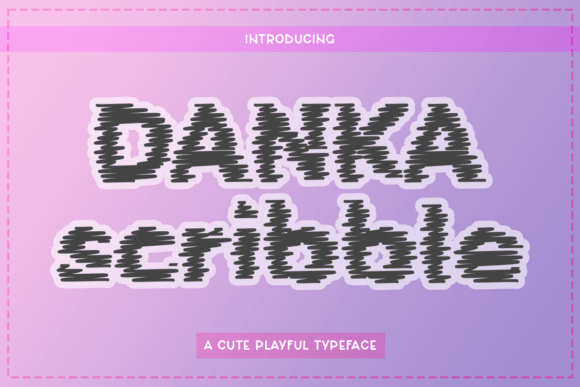
Unleash Your Inner Rebel with the Danka Scribble Font
There’s nothing quite like the rush of creative freedom that comes with picking up a pen and letting your imagination run wild. The scratch of the paper, the swirl of ink, and the thrill of watching your ideas take shape – it’s a sensation that never gets old. And what if you could capture that same energy and spontaneity in your designs? Enter the Danka Scribble Font, a distressed, scribble-themed display font that’s perfect for projects that demand an artistic, rebellious flair.
With its hand-drawn textures and edgy, chaotic charm, the Danka Scribble Font is a game-changer for designers looking to add some unpredictability to their work. Whether you’re creating bold posters, grunge-inspired branding, or anything in between, this one-of-a-kind font is sure to turn heads and spark imagination. By incorporating the Danka Scribble Font into your designs, you’ll be able to make a bold statement and leave a lasting impression.
Danka Scribble Font Key Features
- Unique Characteristics: Danka Scribble Font features a unique scribble-style design, with handwritten-like strokes and flourishes that add a touch of personality to any text.
Danka Scribble Font Review
Overall, I found the Danka Scribble Font to be a visually appealing and versatile choice for various design projects.
- The font’s playful, hand-drawn feel adds a unique touch to text-based designs.
- Its wide range of font weights and styles allows for flexibility in choosing the perfect look for your project.
- The font’s legibility is surprisingly good, making it suitable for both short and long passages of text.
- The font’s irregularities may not be suitable for formal or professional projects where a more polished look is required.
- The font’s width and spacing can be inconsistent, which may cause layout issues in certain situations.
- The font’s aesthetic may not be to everyone’s taste, as some may find it too playful or childish.
In conclusion, the Danka Scribble Font is a great choice for designers looking to add some personality to their projects. While it may not be suitable for every project, its versatility and unique aesthetic make it a valuable addition to any design library.
Getting the Most Out of Danka Scribble
For the best results, use Danka Scribble in combination with bold or italic text to create contrast and visual interest. Experiment with different font sizes and colors to create a unique look.
Danka Scribble is perfect for creating playful, handwritten text for social media graphics, blog posts, and marketing materials. It’s also great for adding a personal touch to wedding invitations, birthday cards, and other special occasion graphics.